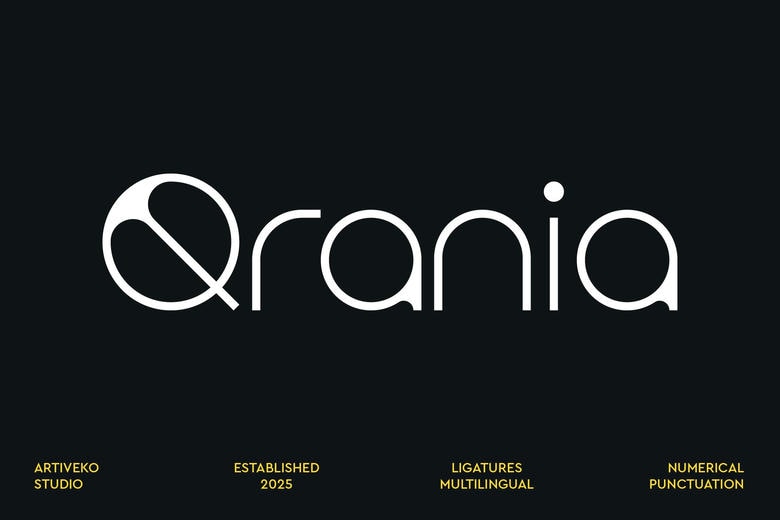
Qrania Font
Qrania is a fresh and refined sans serif font that elevates the sophistication and straightforward design of your text. Qrania is a great branding, editorial layout, packaging, and web and social media graphics typeface, which is quite sleek and current in transmission and proportions.
Qrania Sans Serif Font